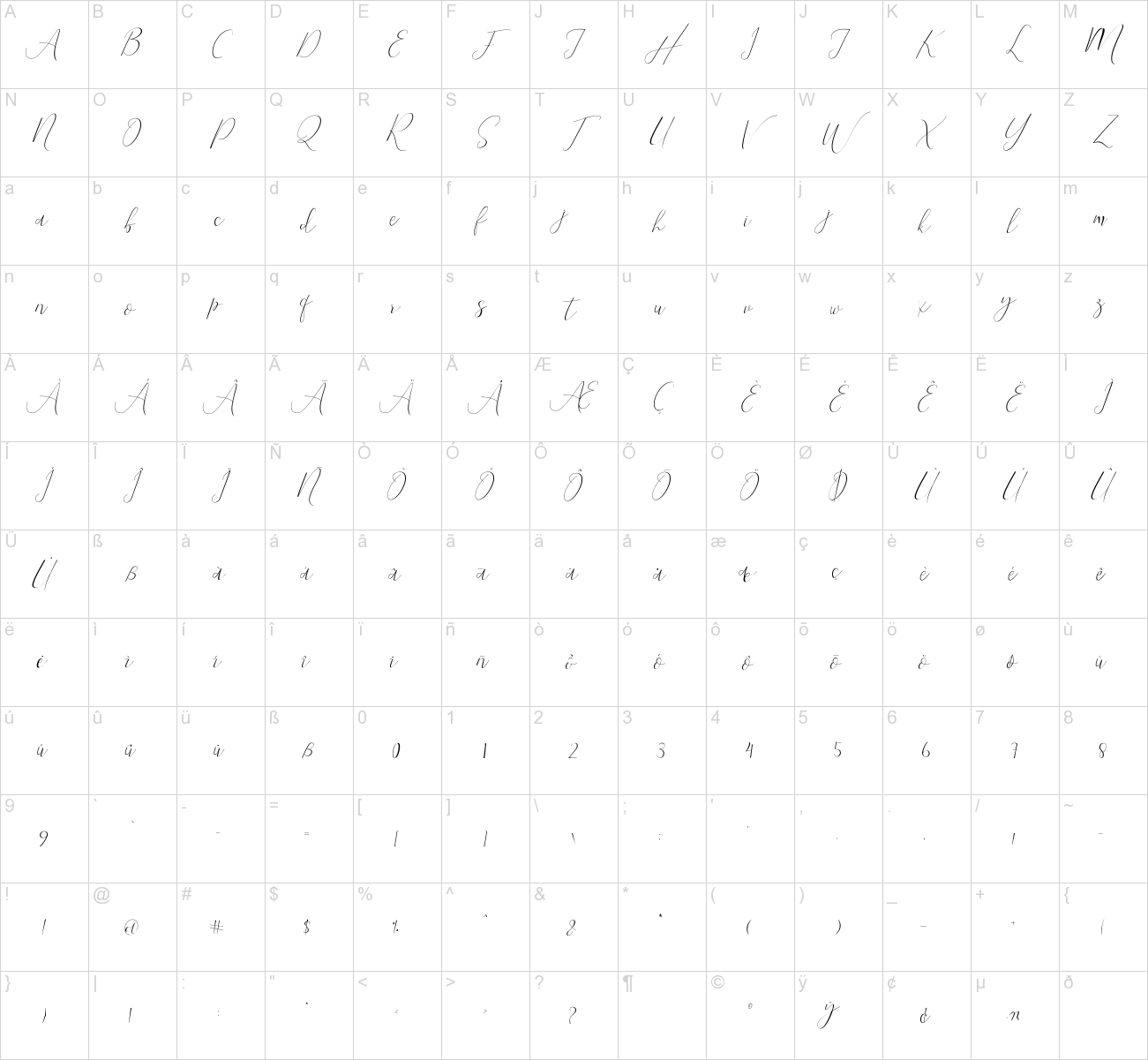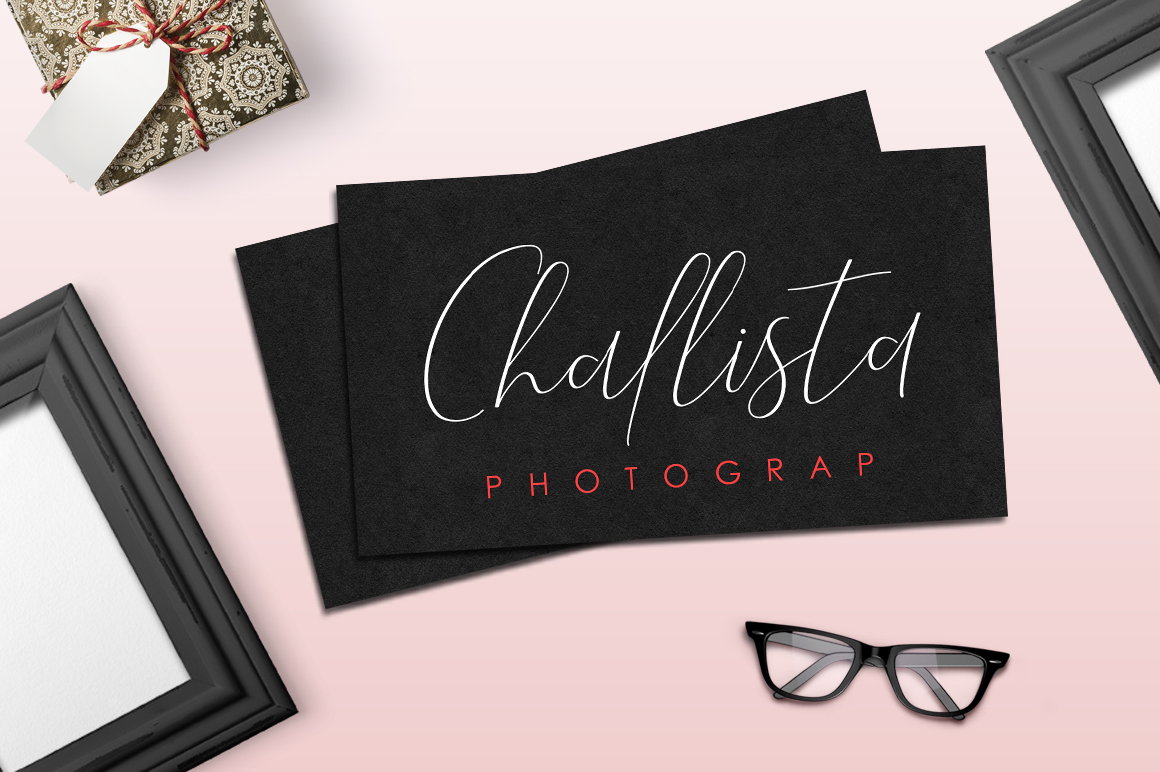
Steady Script Font
A script font with a fine handwriting style. Equipped with 450 glyphs. Steady Script, ideal for branding projects, home design, product packaging, business card usage, invitation cards, etc. Just as a styled text overlay to a background image or anything that requires a sprinkling of elegance.